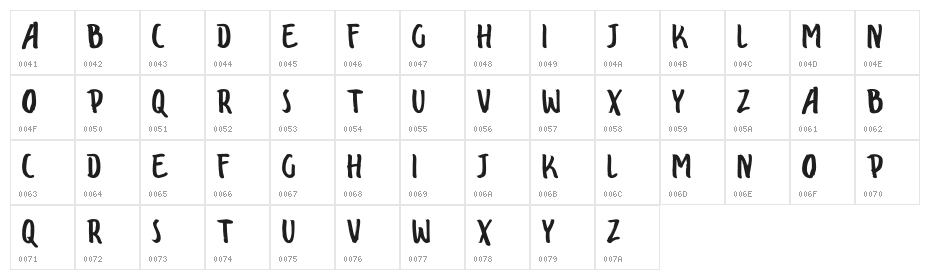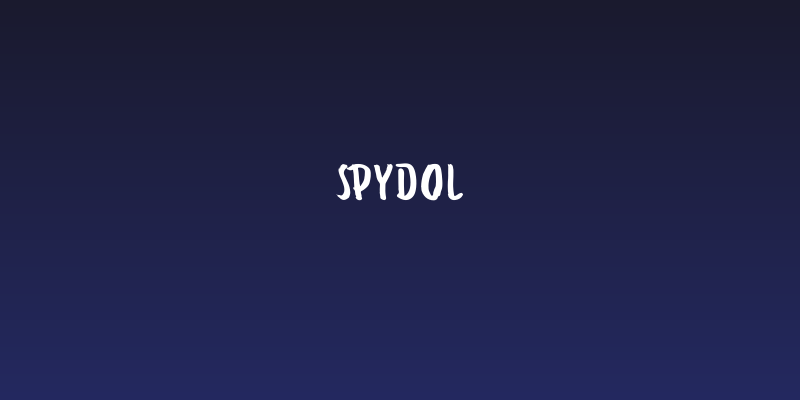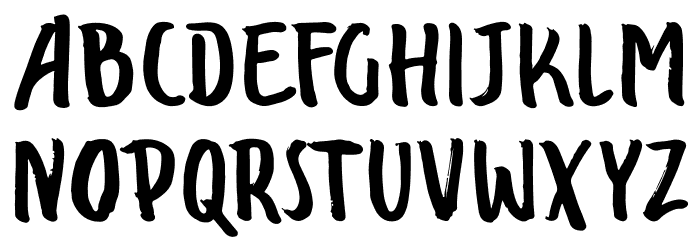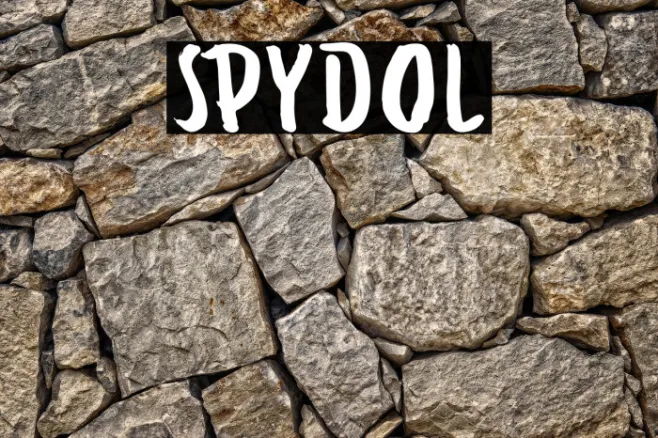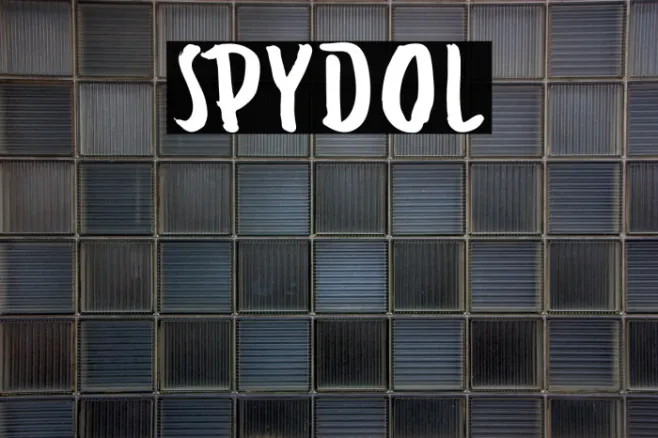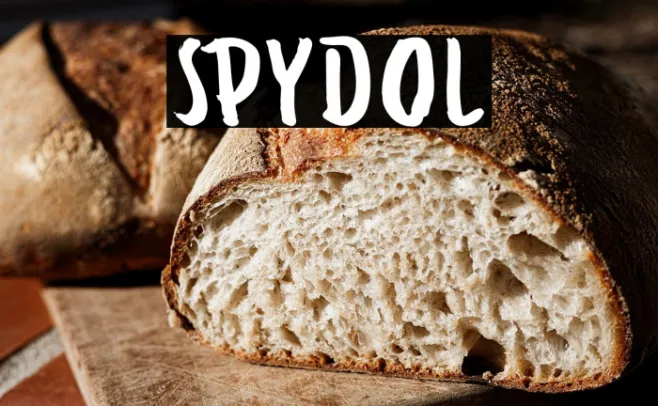
SPYDOL Font
SPYDOL Description
This font features a bold and expressive handwritten style, characterized by thick, uneven strokes that give it a dynamic and energetic appearance. The letters have a casual, brush-like texture, suggesting a sense of movement and spontaneity. The uppercase letters are prominent and slightly irregular, adding to the font's informal charm. The overall design is playful yet assertive, making it suitable for projects that require a personal touch or a creative flair. The font's unique style is both eye-catching and versatile, ideal for a variety of design applications.
| Proposed Projects | Ideal for branding, posters, social media graphics, and creative projects that require a personal touch. |